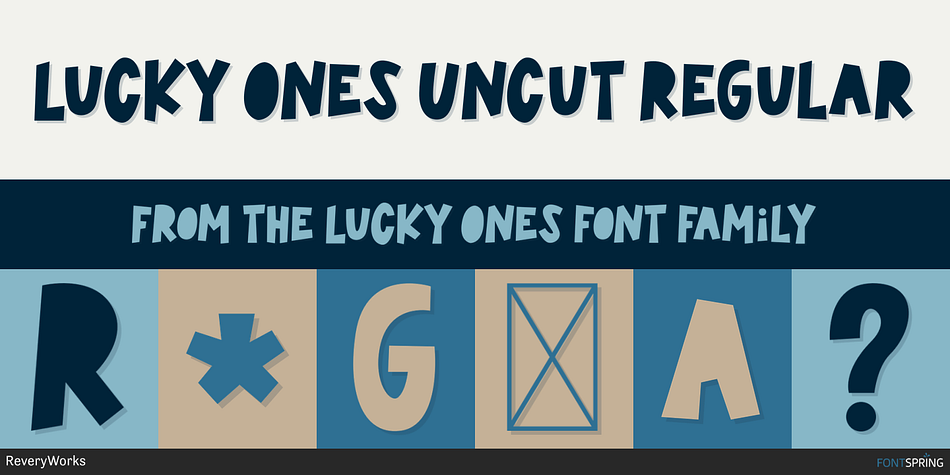
Lucky Ones Uncut Regular
Lucky Ones is a hand display font family. This typeface has three styles and was published by ReveryWorks.
Hi Friends! Introducing The Lucky Ones fonts and illustrations! This paper cut inspired font comes in 3 fun versions: cut, uncut and ransom notes style (Please take a look at the previews to understand what I’m referring to)
It’s playful, comical and pairs so well with illustrations in your projects!